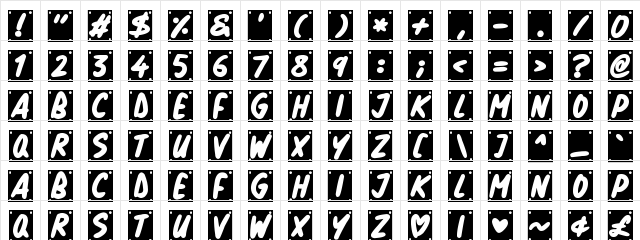
School Play Regular
Design Context for School Play Typeface
School Play is a composed and adaptable typeface that performs quietly and consistently across a wide range of design contexts.